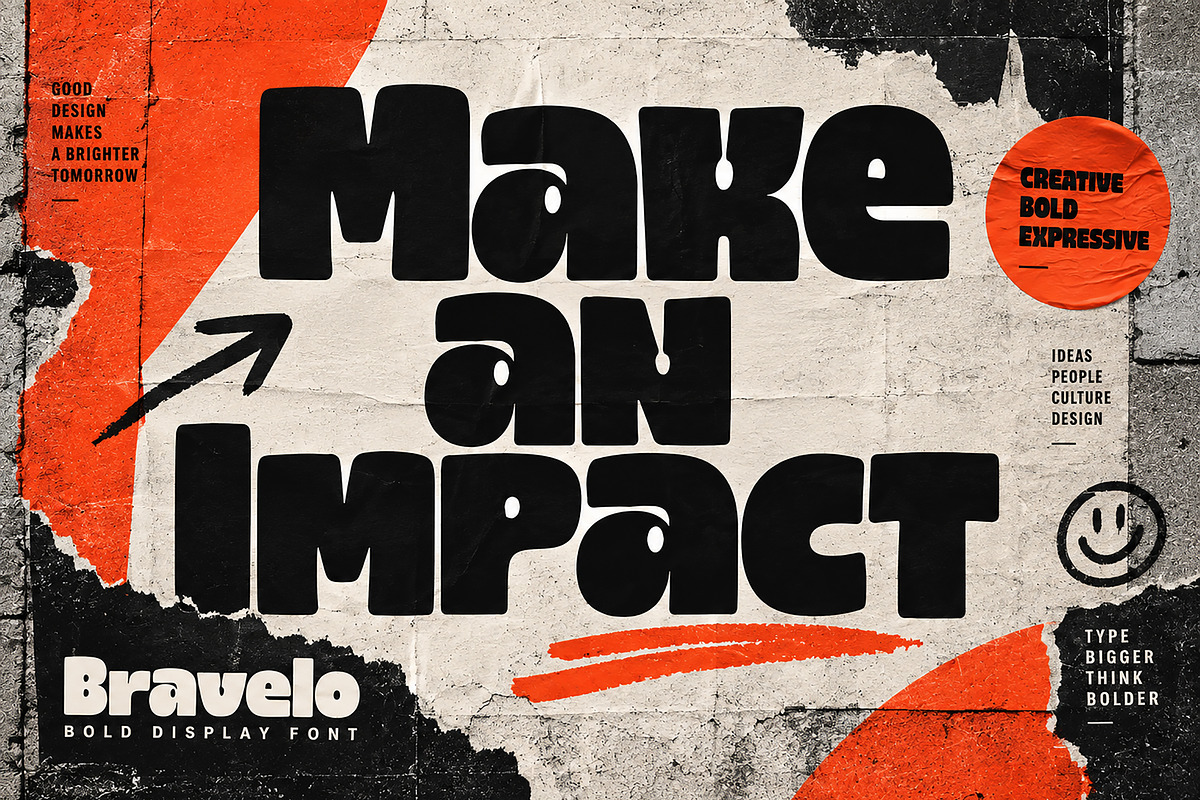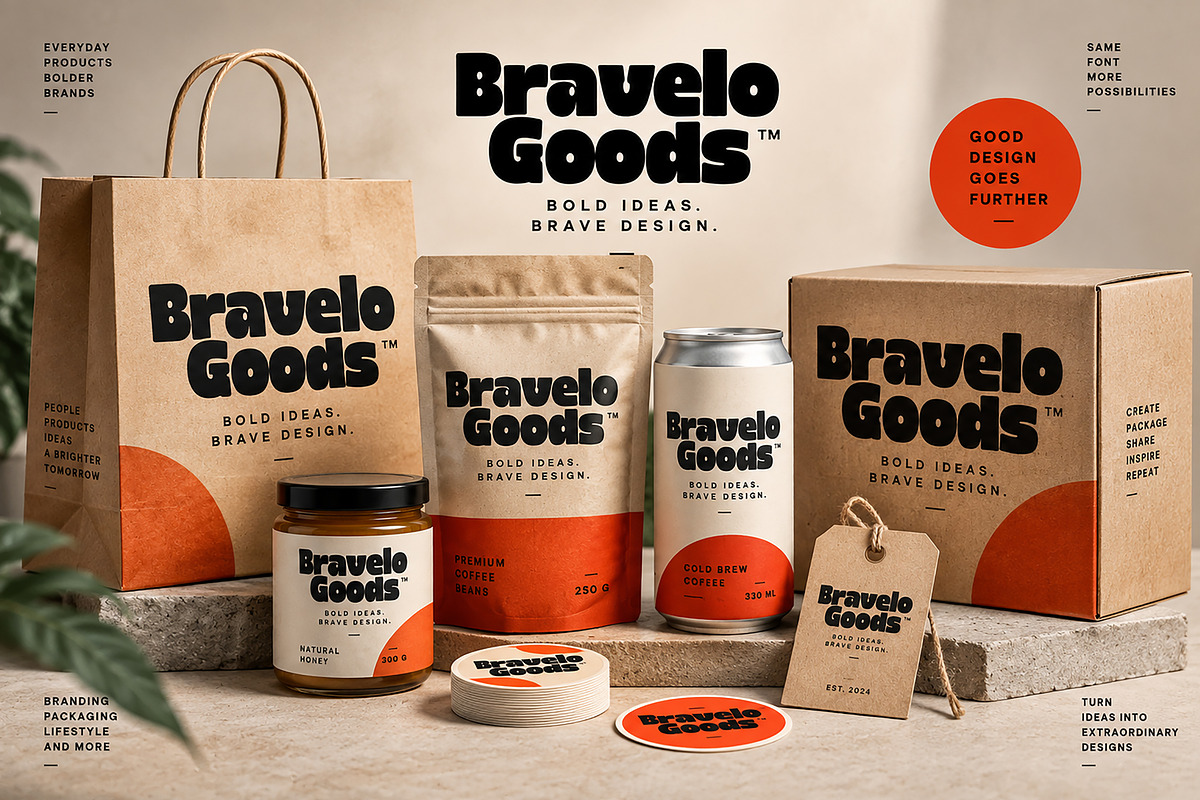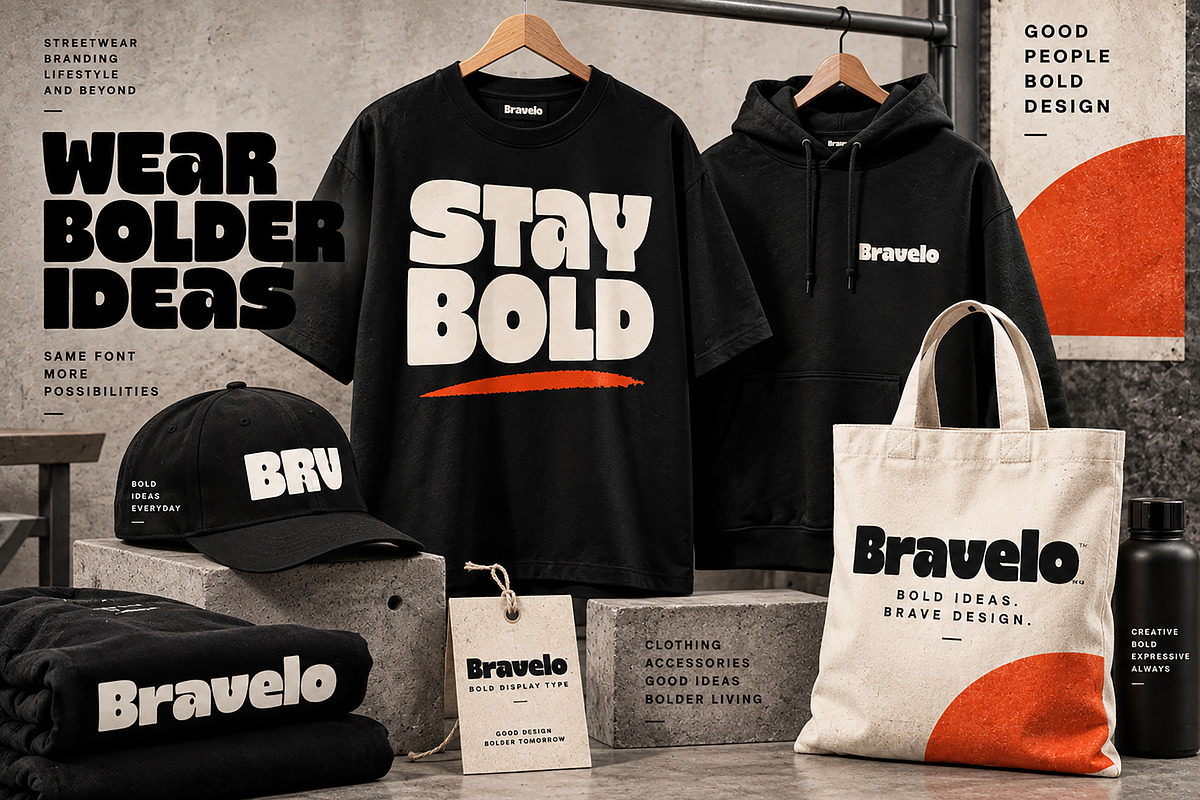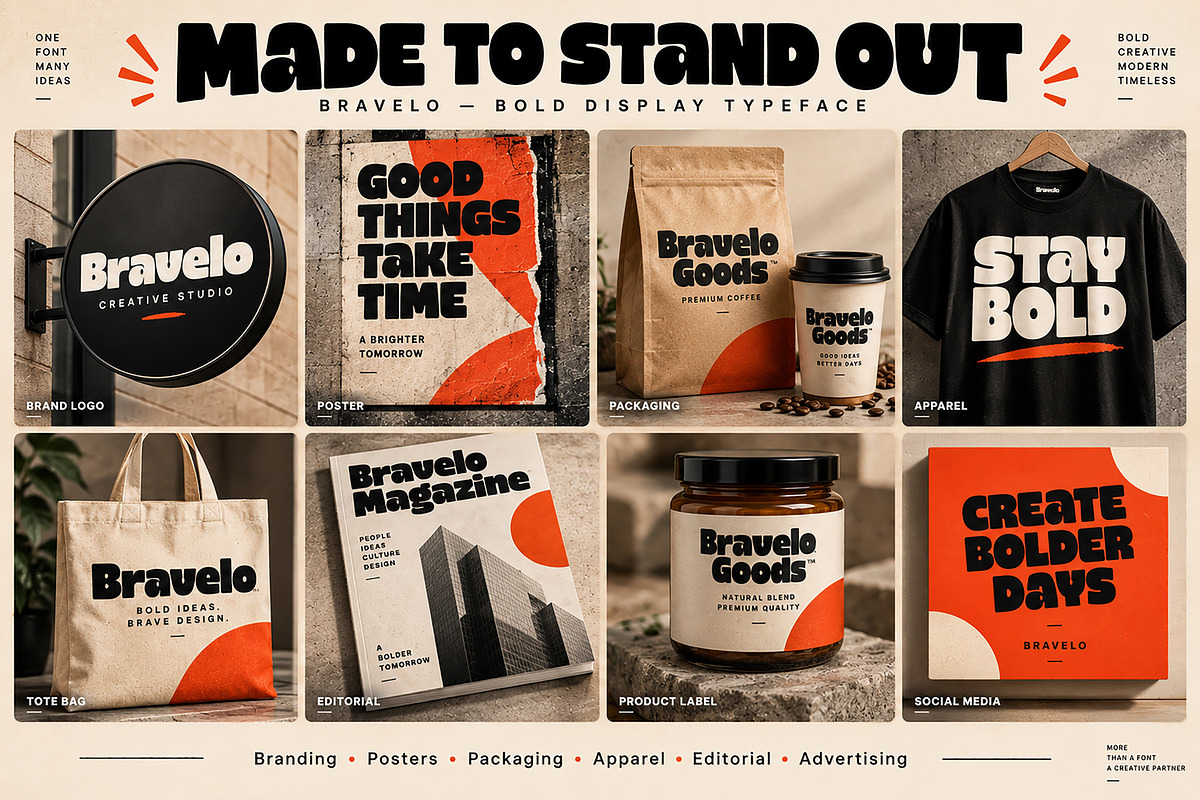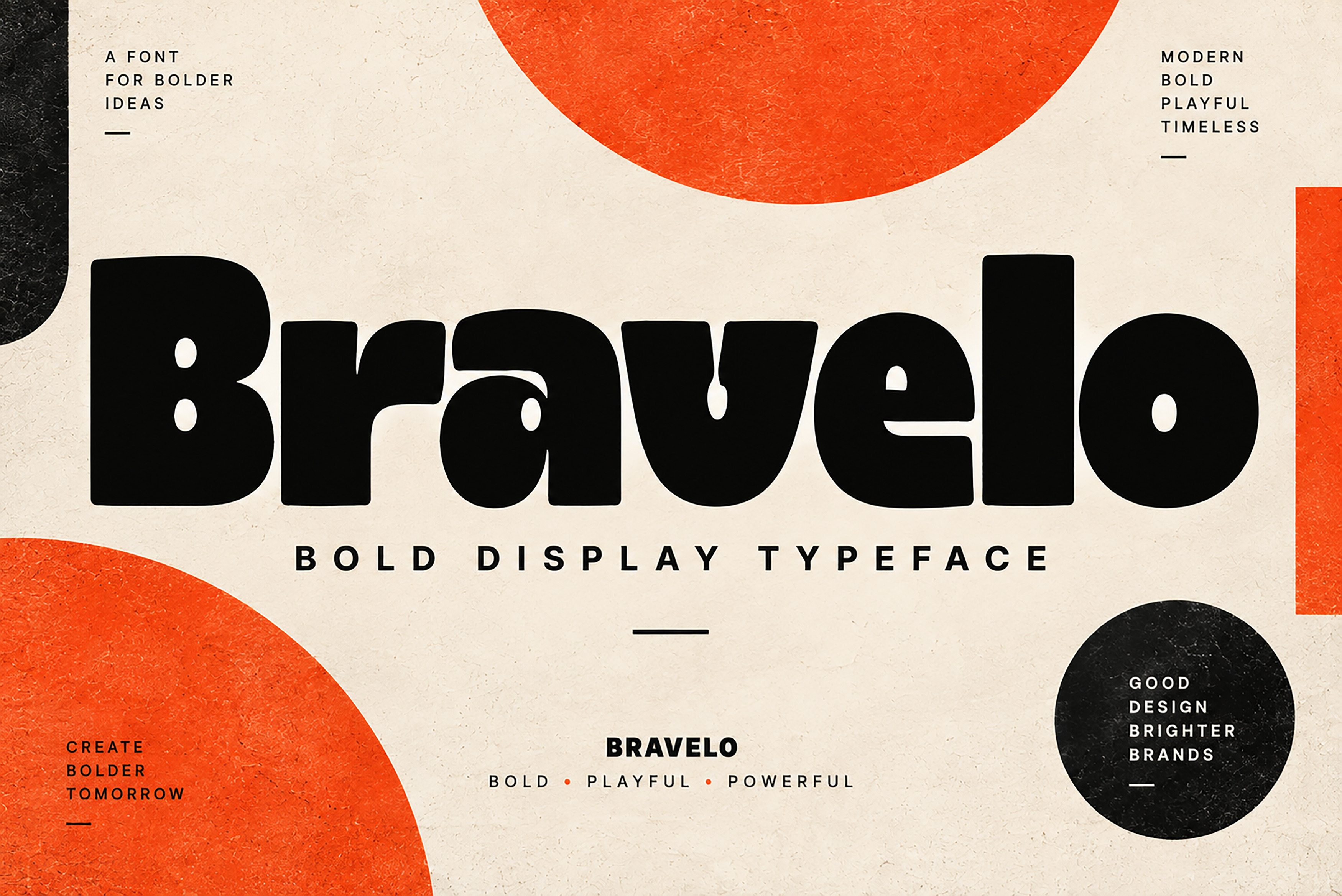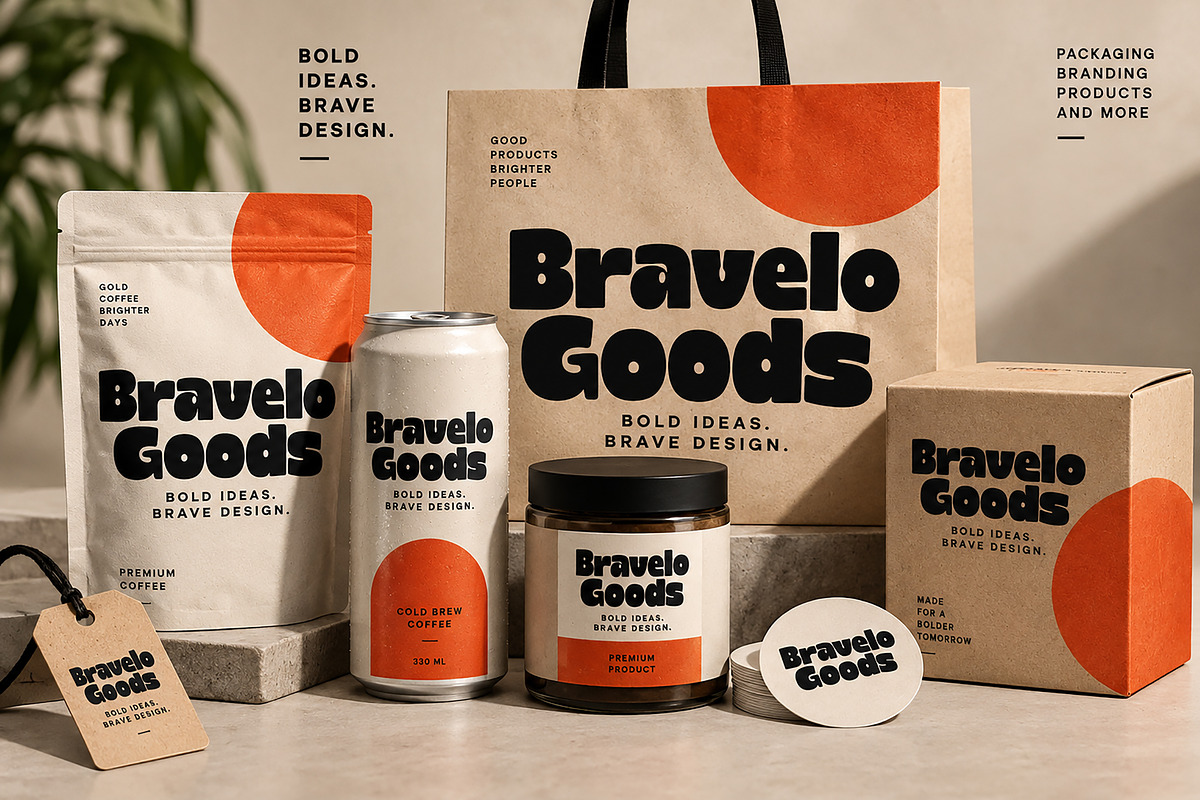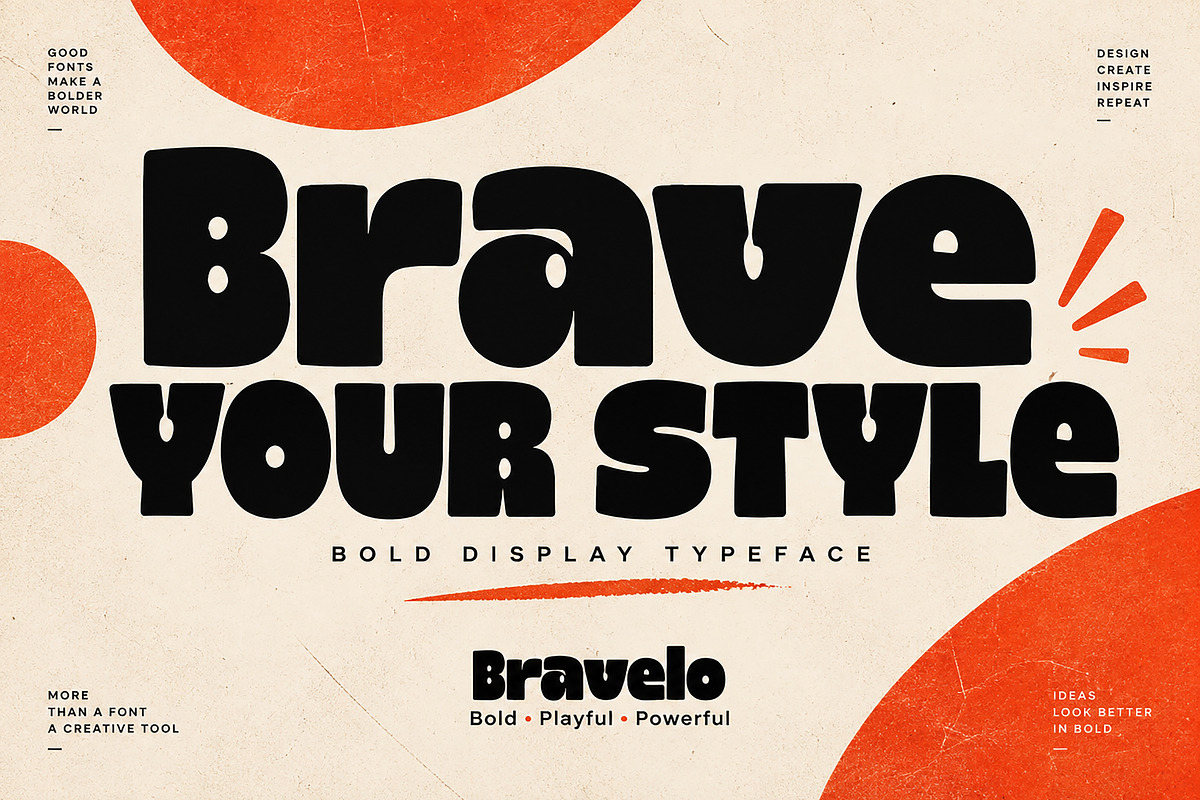
Bravelo — A Bold Display Font
Bravelo — A Bold, Chunky & Playful Display Font Made to Stand Out.
Bravelo is a bold and playful display font designed to make headlines, branding, and creative compositions stand out. Its chunky, rounded letterforms bring a strong visual personality with a modern, energetic feel, making it an excellent choice for eye-catching designs.
Bravelo works beautifully for logos, branding, posters, advertising, packaging, apparel, editorial designs, social media graphics, labels, stickers, and other bold display applications.
Whether you're creating a powerful brand identity, an expressive poster, or a modern streetwear design, Bravelo adds a confident and memorable typographic presence.
Bold and chunky display style
Rounded and playful letterforms
Strong visual impact
Great for headlines and large typography
Suitable for branding and commercial design projects
Perfect for posters, packaging, apparel, labels, and advertising
Style: Bold Display / Chunky / Rounded / Playful